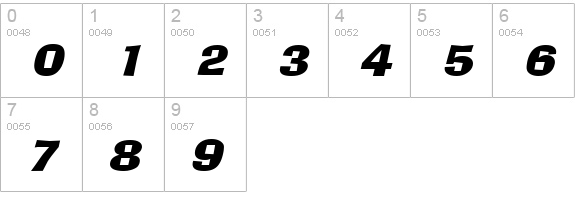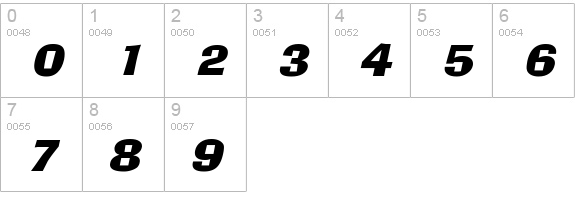
Alor-Extended Italic is a distinctive, extended-width, italic variant in the Alor typeface family \xE2\x80\x94 well suited to design and typography projects.
Alor-Extended Italic font is a sleek and modern typeface designed to make your text stand out with its unique and elegant style. The extended italic version adds an extra touch of sophistication to your projects, making it perfect for branding, headlines, and promotional materials. The graceful curves and slanted design of this font give it a sense of movement and energy, making your words come to life on the page. Best of all, Alor-Extended Italic font is completely free to use! You can easily download this stunning font at FontsMarket.com and start incorporating it into your designs right away. Whether you're creating a logo, designing a website, or working on a print project, Alor-Extended Italic font is sure to add a touch of class and creativity to your work. Download it today and elevate your typography game with this exquisite and freely available typeface.